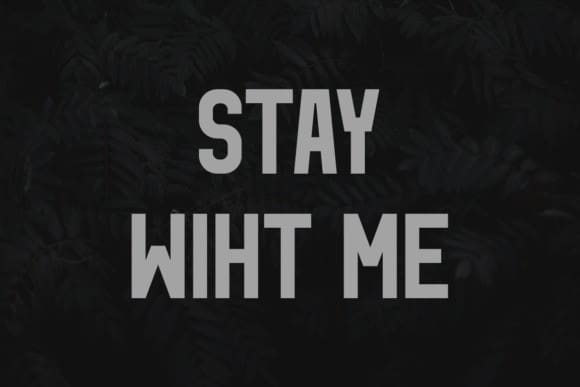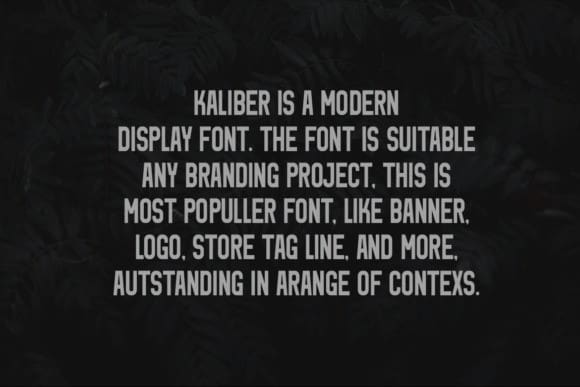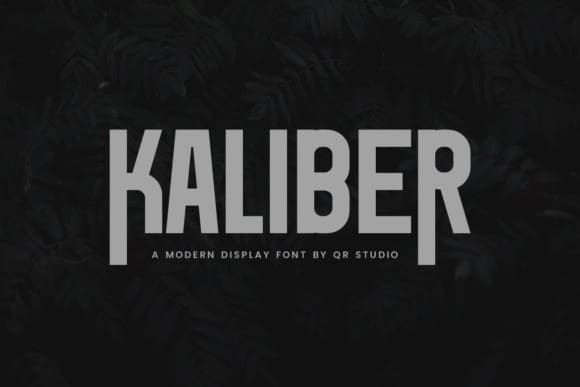
Kaliber Font
Kaliber Font is a modern and cool sans-serif display font. Its clean lines and contemporary design make it ideal for headlines, posters, and branding projects. With its sleek and stylish appearance, Kaliber brings a sense of sophistication and professionalism to any creative endeavor